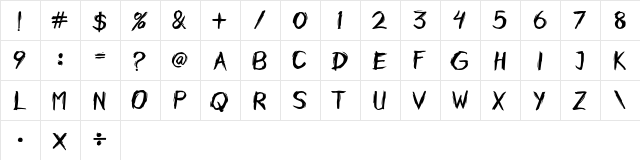
Horobi Regular Font Preview
Horobi Regular
Horobi Regular Font Details
Design Context for Horobi Typeface
Horobi is a composed and adaptable typeface that performs quietly and consistently across a wide range of design contexts.